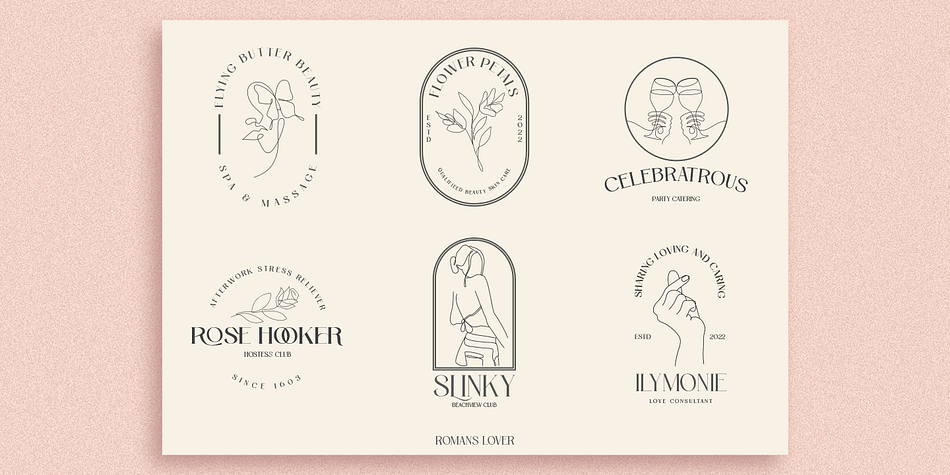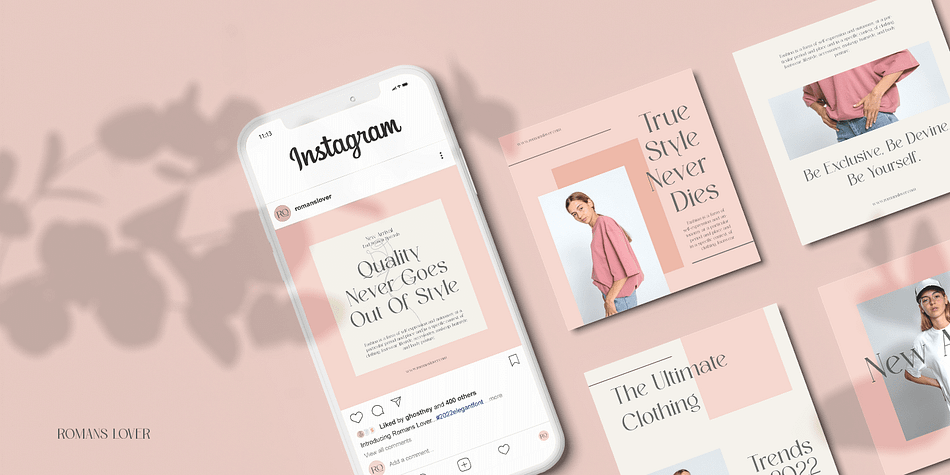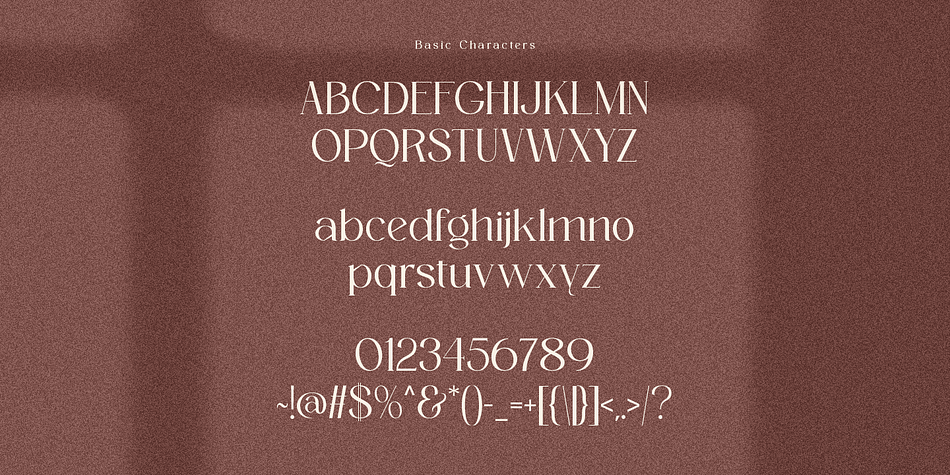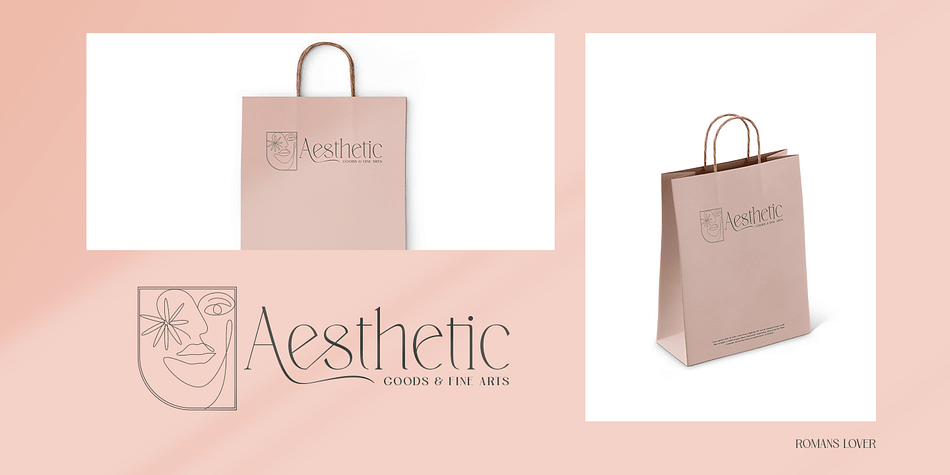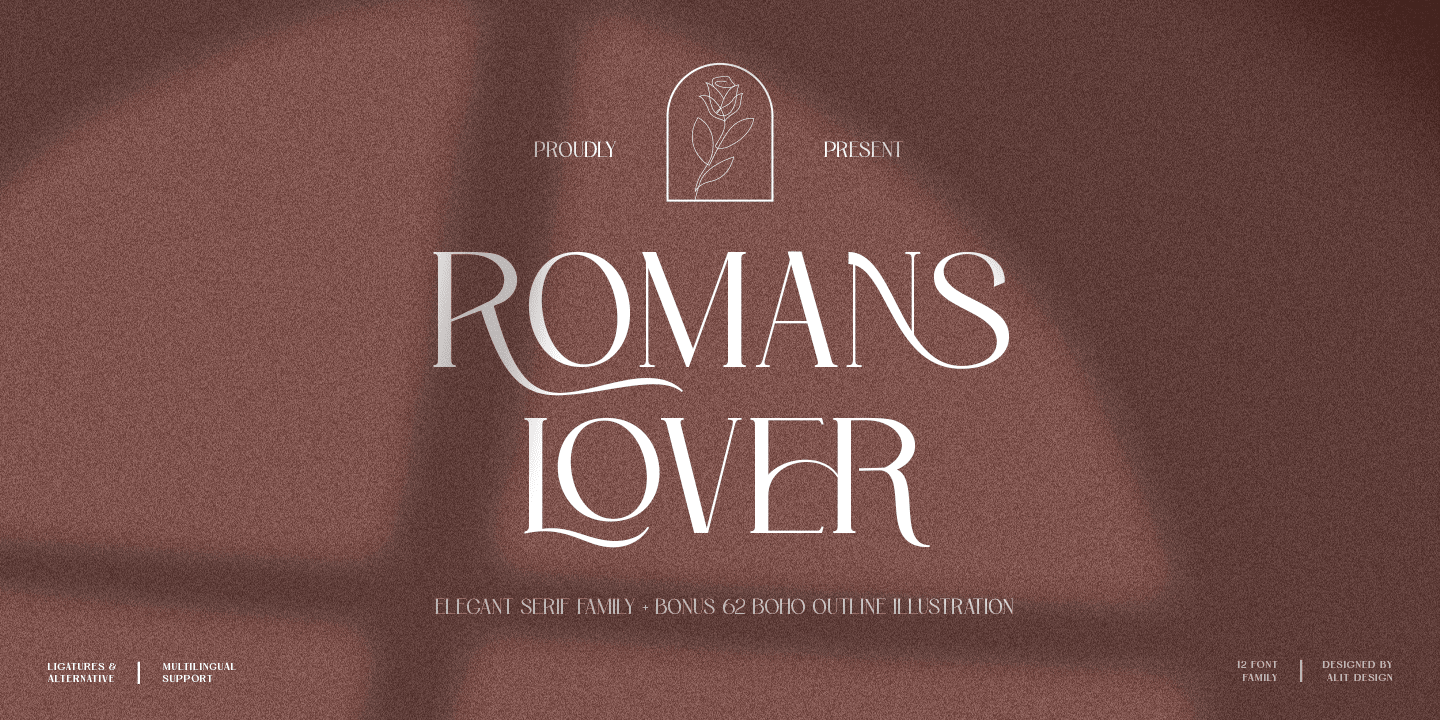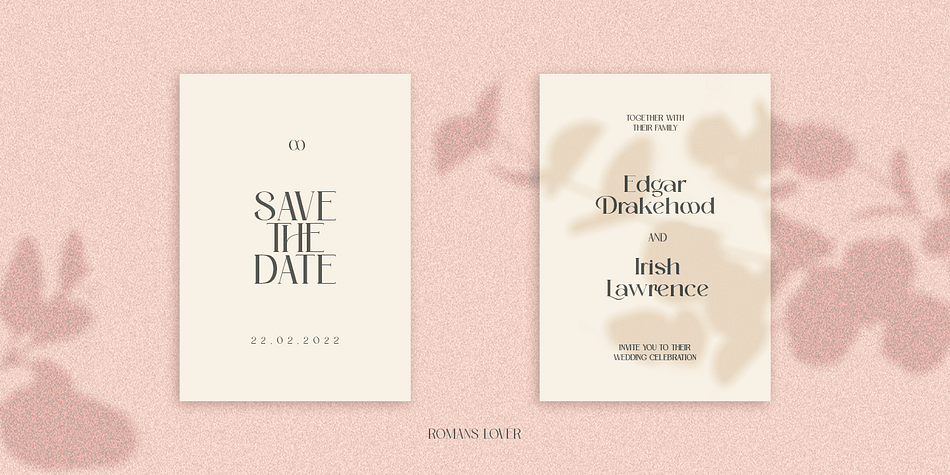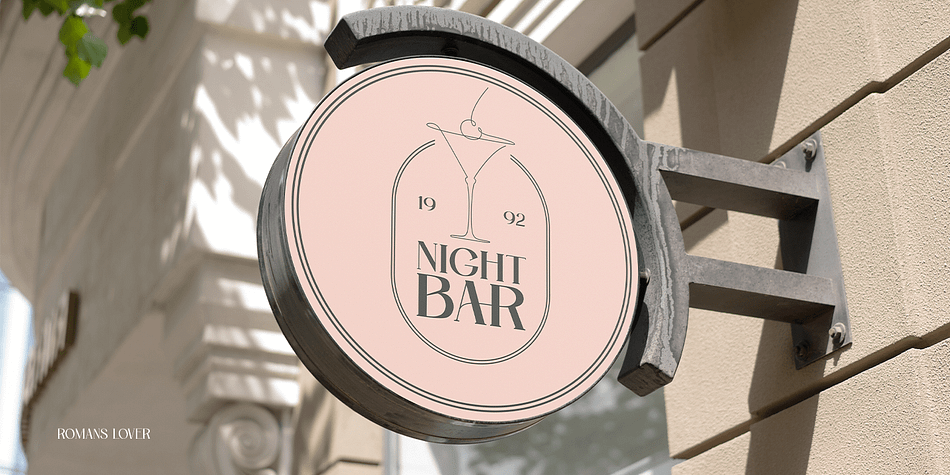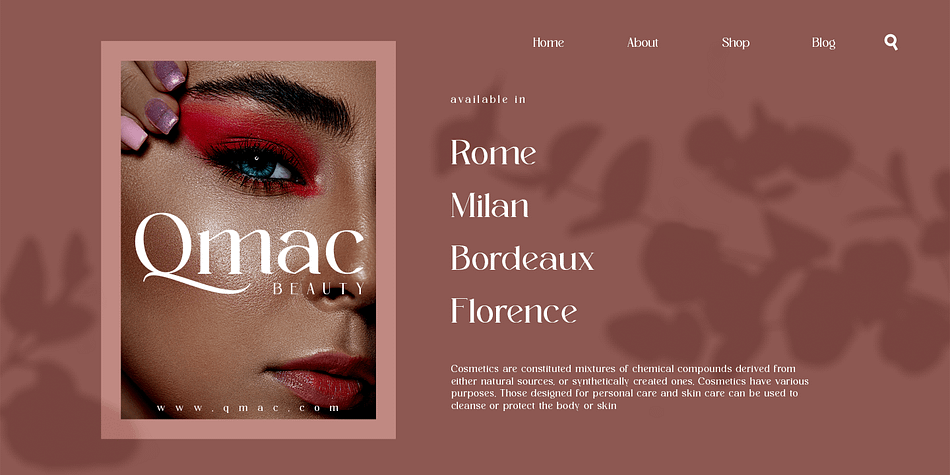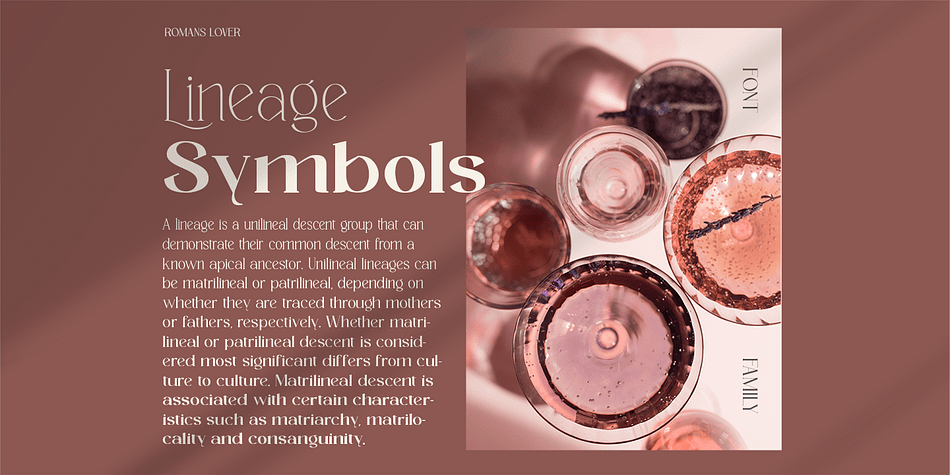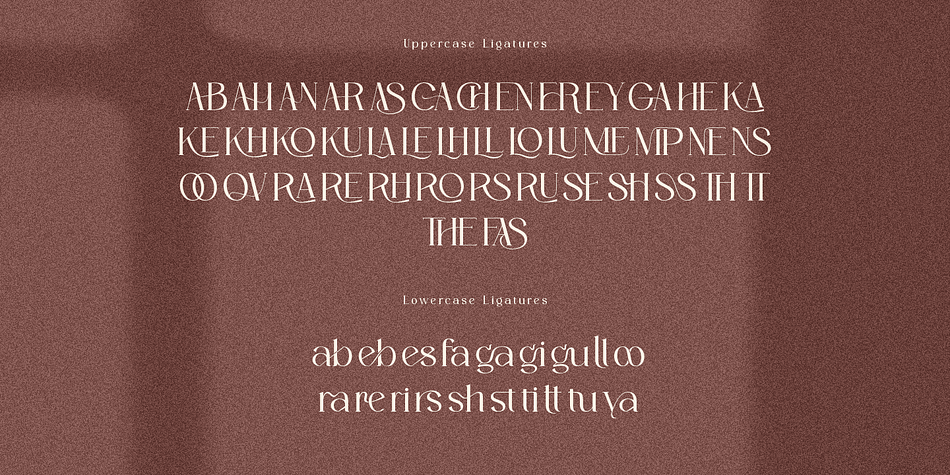
Roman Lover
Designed by Alit Suarnegara, Roman Lover is a display serif and dingbat font family. This typeface has thirteen styles and was published by Alit Design.
Introducing Roman Lover Elegant typeface + Bonus Boho Illustrations
The Roman Lover Serif typeface is an elegantly themed font that has a dynamic serif style. The details of the shape of the “Roman Lover Serif Elegant typeface” are very smooth and flow to create unique and beautiful curves. Elegant Serif typefaces such as “Roman Lover Serif Elegant typeface” are very easy to apply to any design, especially those with an elegant and smooth concept, besides that this font is very easy to use both in design and non-design programs because everything changes and glyphs are supported by Unicode (PUA).
The Roman Lover Serif Elegant typeface contains 573 glyphs with many unique and interesting alternative options. Plus, there’s a cool serif font family for header and description text from Thin to Heavy. In the poster preview all the letters are in the Roman Lover Serif Elegant typeface.
Bonus 62 Boho outline illustration unique using format font